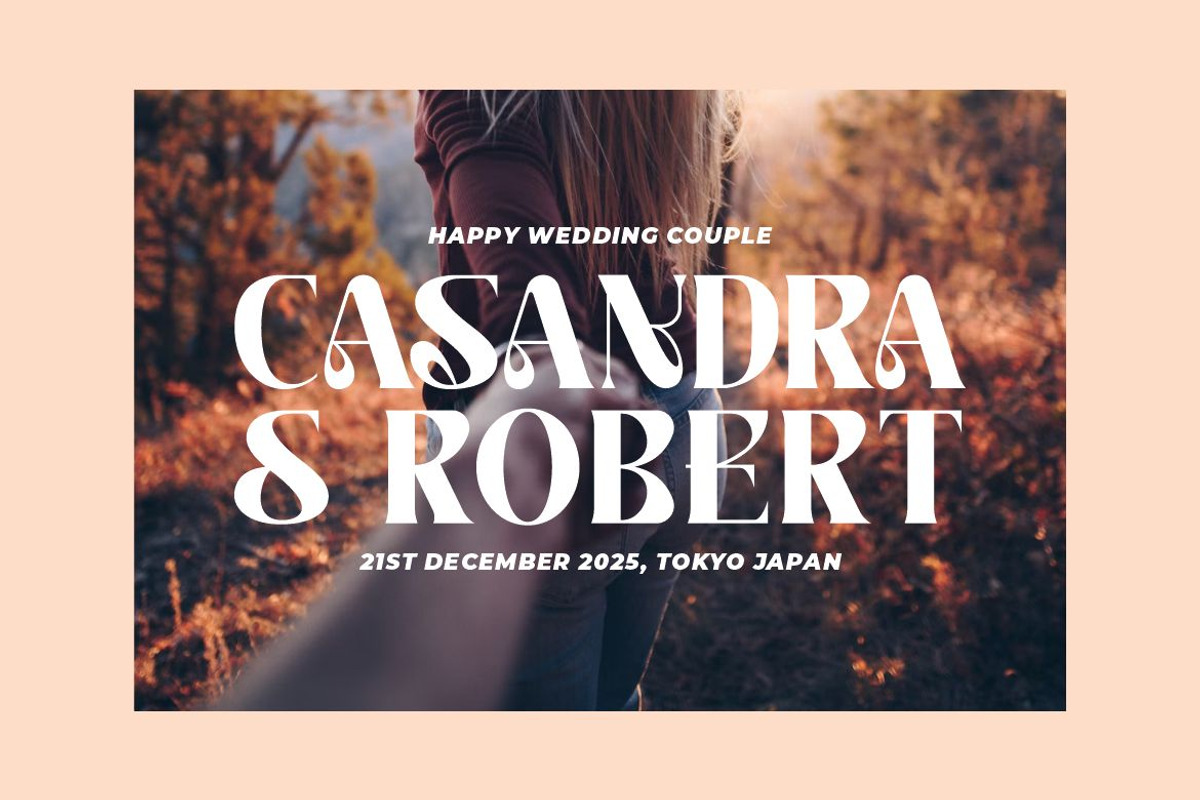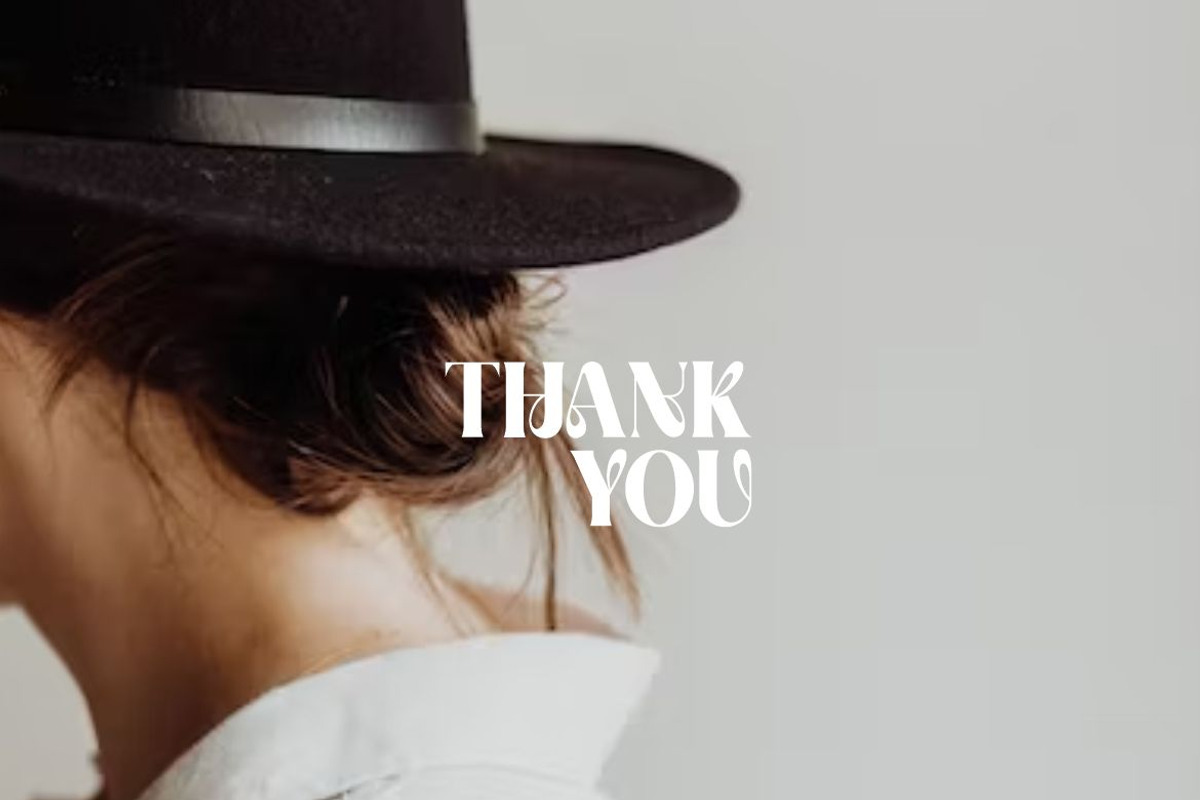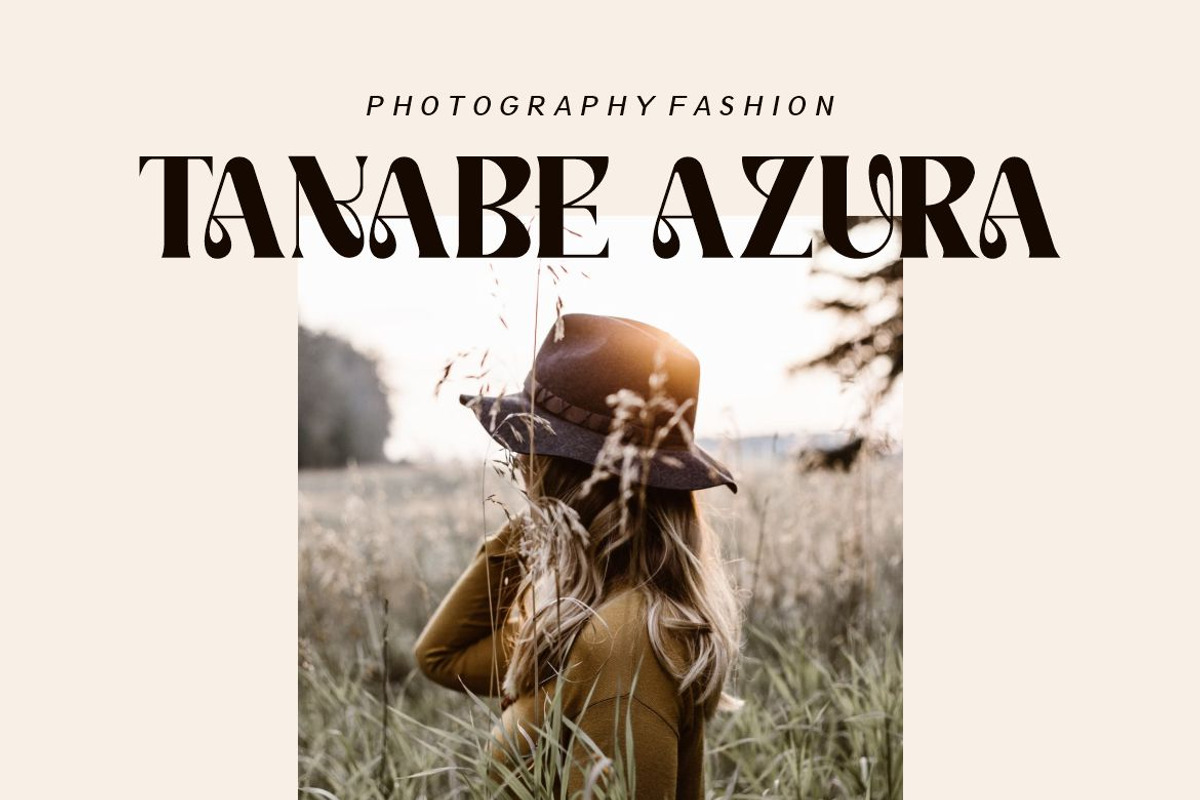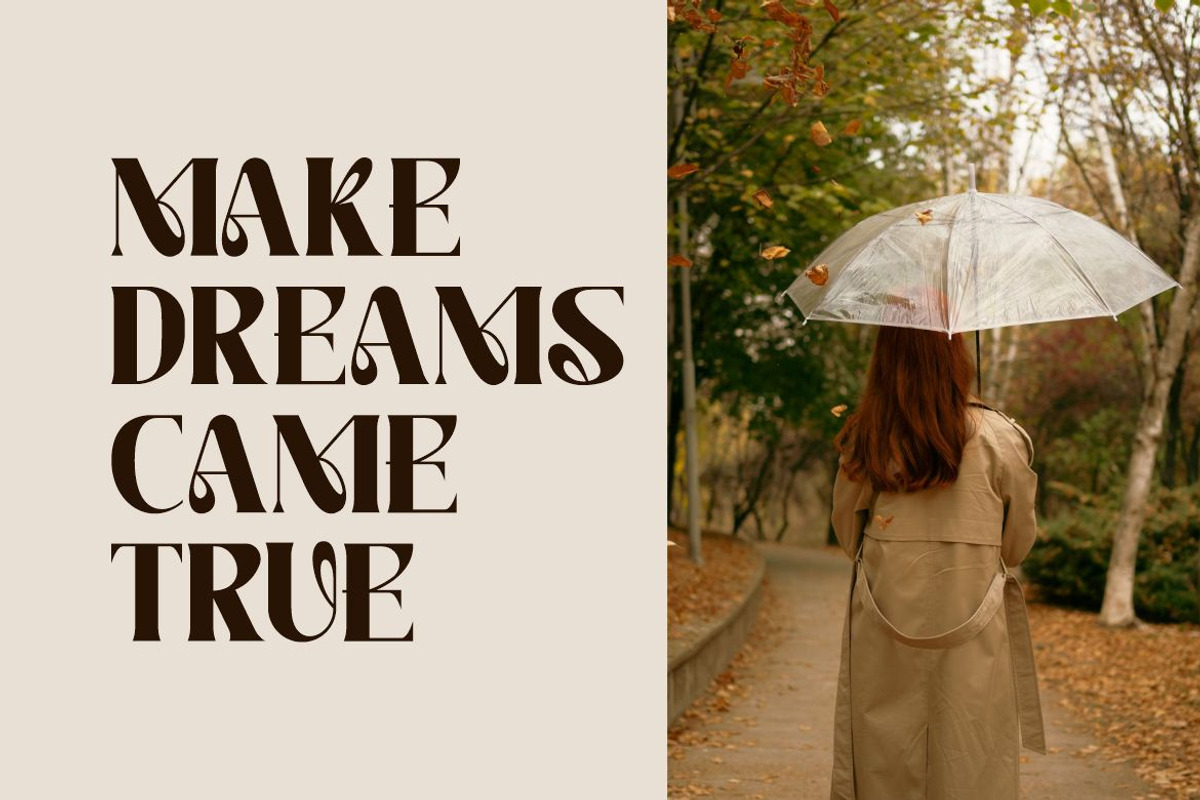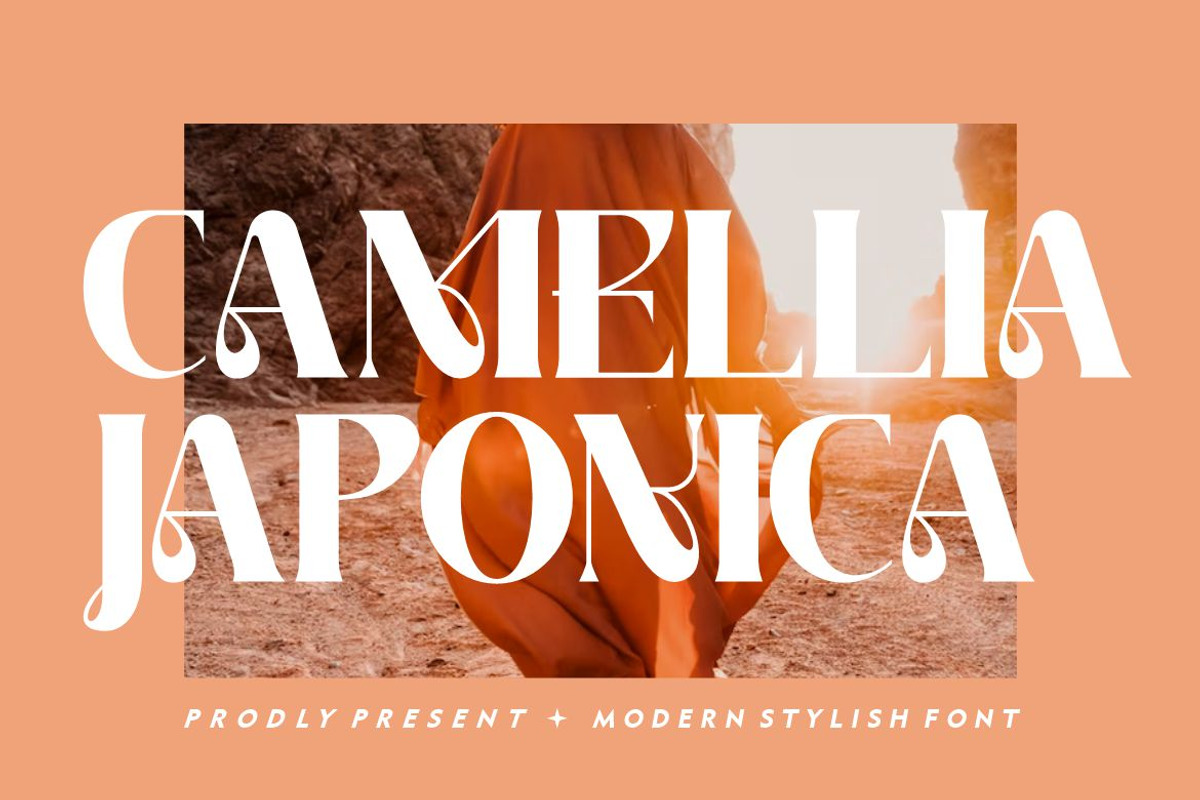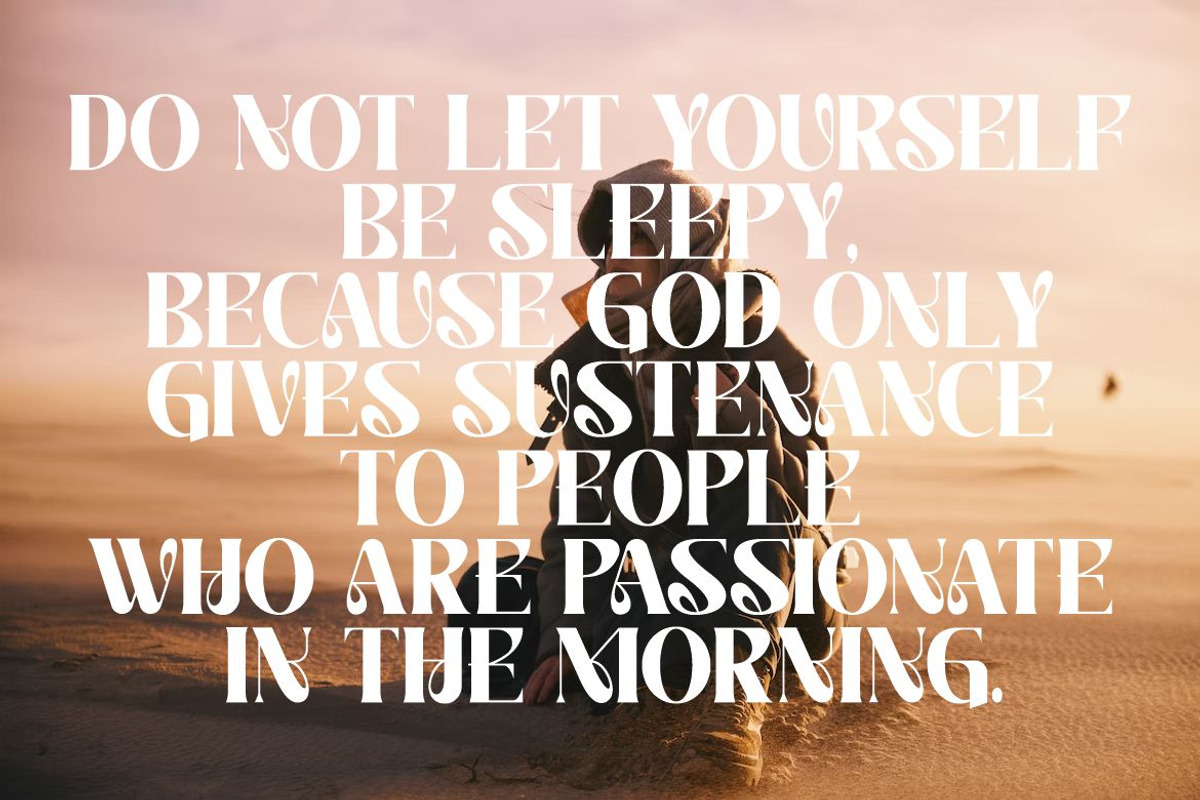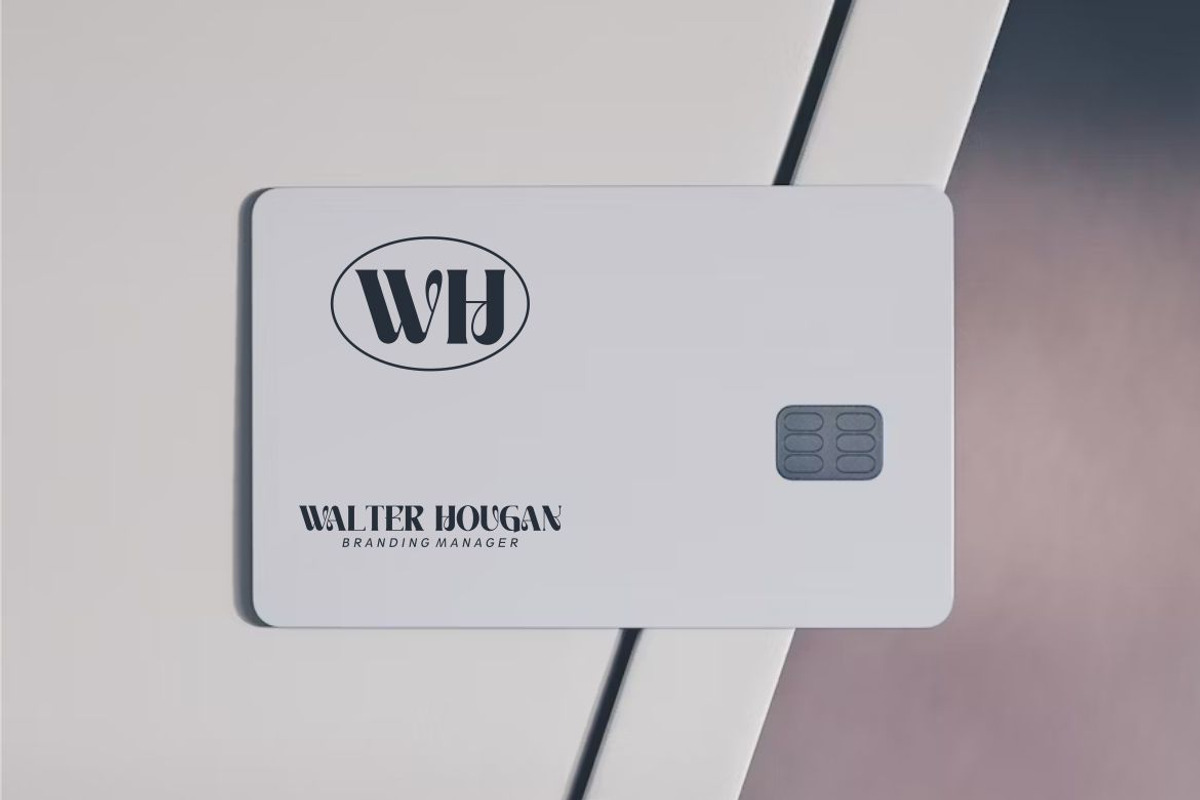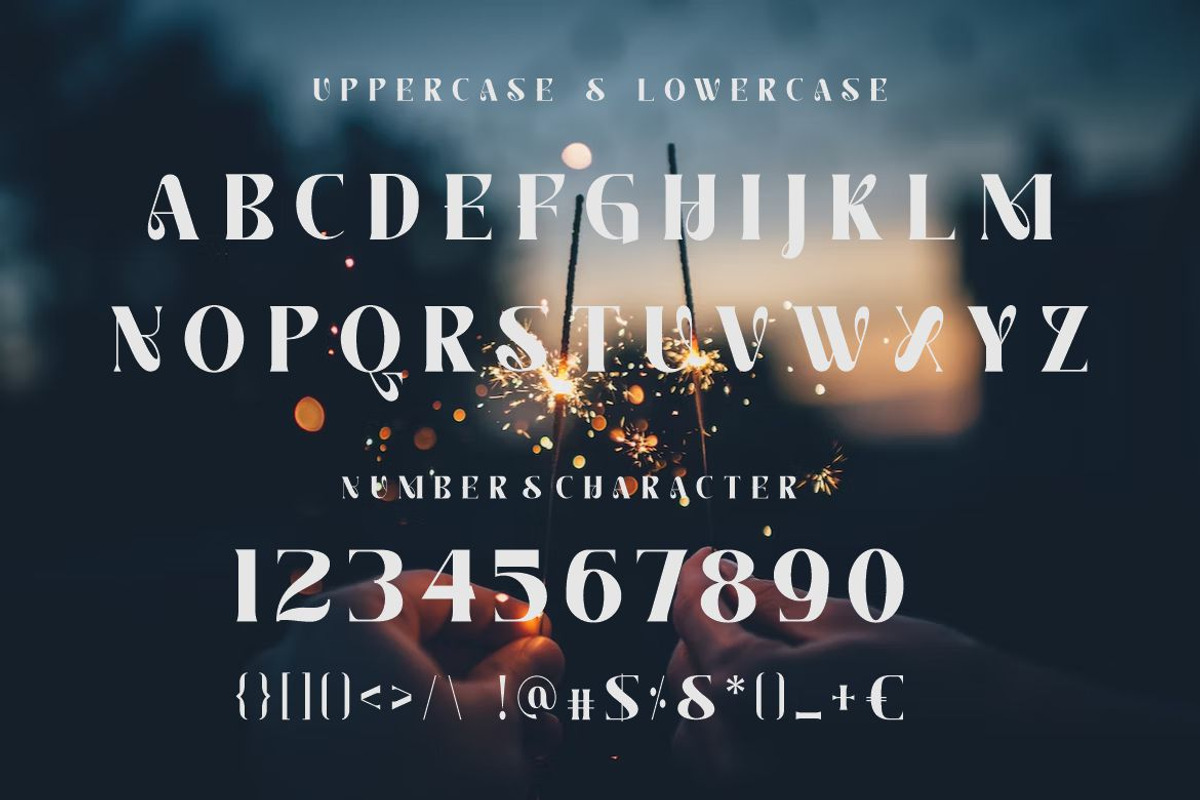
Camellia Japonica
Introducing Camellia Japonica - A Display Serif Font With Alternates by Look minus today
Camellia Japonica - Is a display and elegant serif font that is perfect for adding a touch of sophistication to your designs. Its sleek and stylish look makes it suitable for a variety of applications, including branding, advertising, and editorial design.
Uppercase Lowercase Alternates Numerals & Punctuation Multilingual